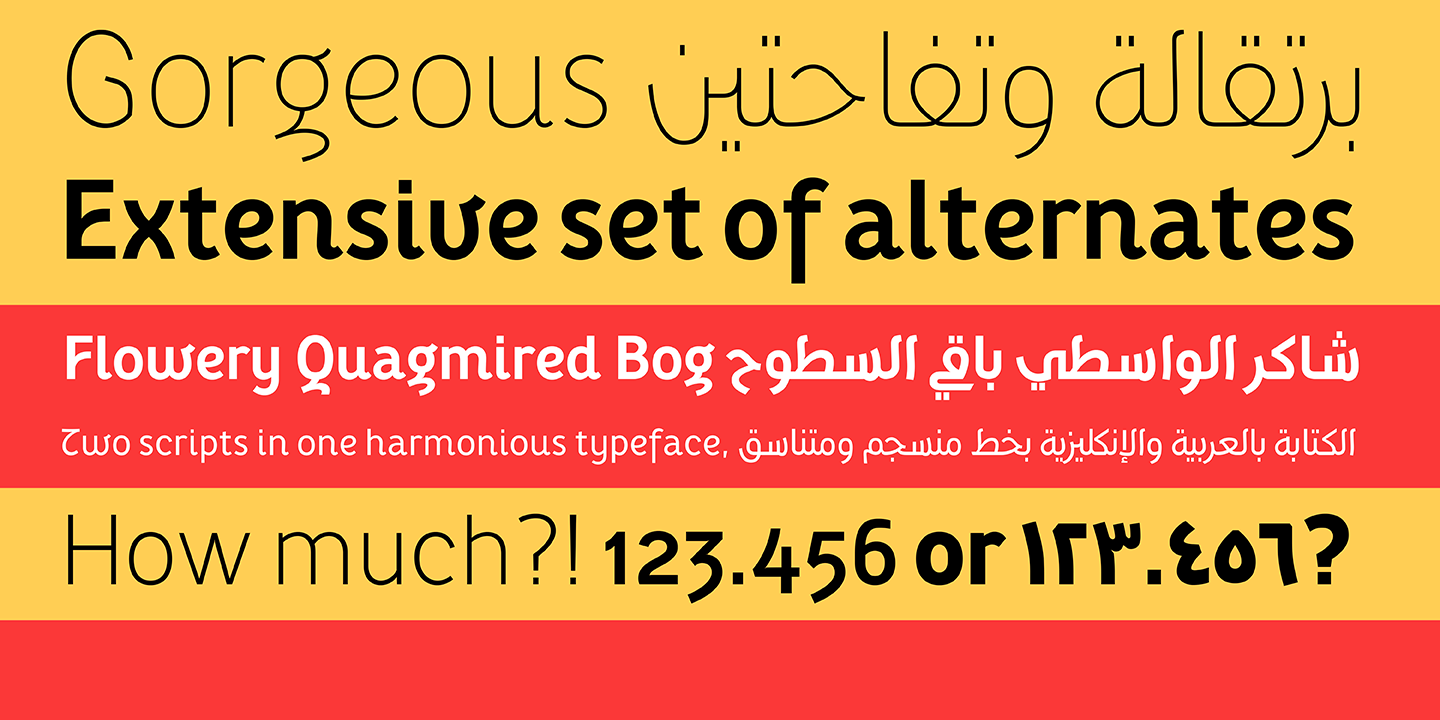
AwanZaman Font is perfect for Islamic cultural event materials, Middle Eastern restaurant branding, Arabic calligraphy workshops, mosque signage, halal food packaging, traditional craft exhibitions, cultural heritage museums, Arabic language learning resources, Islamic art galleries, and contemporary Muslim lifestyle brands.
AwanZaman Font is exciting because it masterfully bridges traditional Arabic calligraphy with modern design sensibilities through its flowing, cloud-inspired letterforms that honor Islamic artistic heritage while delivering messages with contemporary elegance and spiritual sophistication.
AwanZaman Font family includes Regular, Bold, Light, Classical, Italic, Condensed, Ornamental, and Contemporary variations, providing designers with a complete cultural toolkit to create respectful visual communications that celebrate Islamic traditions while meeting modern design requirements.
AwanZaman Font embodies the timeless beauty of Islamic art and Arabic cultural heritage, making it an invaluable resource for organizations seeking to honor Muslim traditions and connect authentically with Arabic-speaking communities. This culturally significant typeface brings spiritual elegance to any design project, whether you're developing Islamic community center identities, creating cultural celebration materials, or designing educational resources about Arabic heritage. The gracefully balanced character design of AwanZaman Font Free Download ensures exceptional readability while maintaining the artistic flow that reflects centuries of Islamic calligraphic tradition and cultural sophistication.
Cultural institution professionals consistently select AwanZaman Font for Islamic centers, Arabic cultural organizations, and Middle Eastern educational institutions because of its ability to communicate cultural respect, spiritual depth, and authentic connection to Islamic artistic traditions. The font's elegant appearance makes it particularly effective for targeting Muslim communities and creating materials that honor religious and cultural values.
AwanZaman Font excels in educational and community applications where cultural sensitivity and authentic representation are essential. Islamic schools, Arabic language programs, and multicultural organizations rely on this font to create materials that celebrate diversity while maintaining cultural authenticity and religious respect.
The hospitality and retail sectors have embraced AwanZaman Font for halal restaurants, Islamic bookstores, and Middle Eastern cultural venues. Its sophisticated visual character helps businesses create environments that honor Islamic culture and Arabic heritage, appealing to communities seeking authentic cultural experiences and businesses that understand and celebrate their religious and cultural identity.